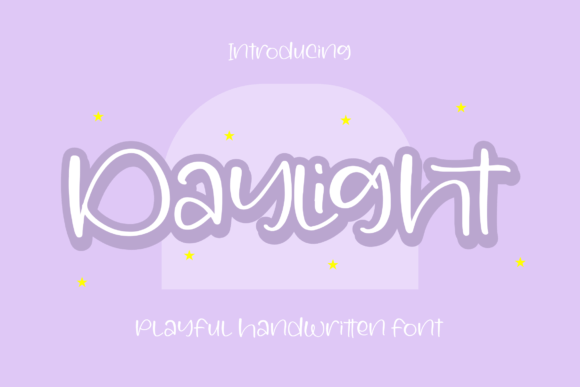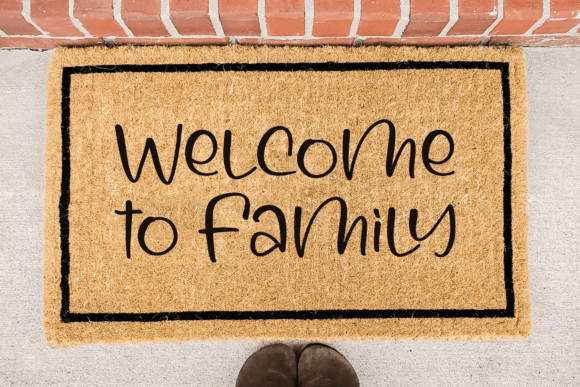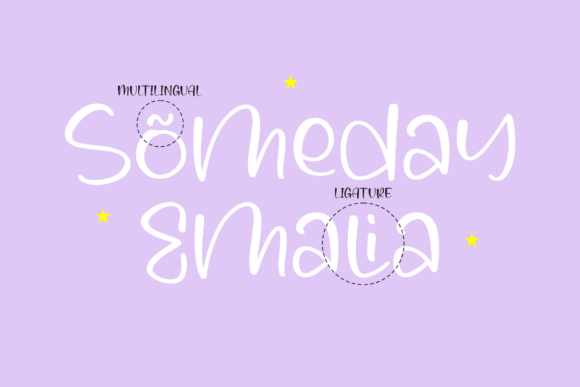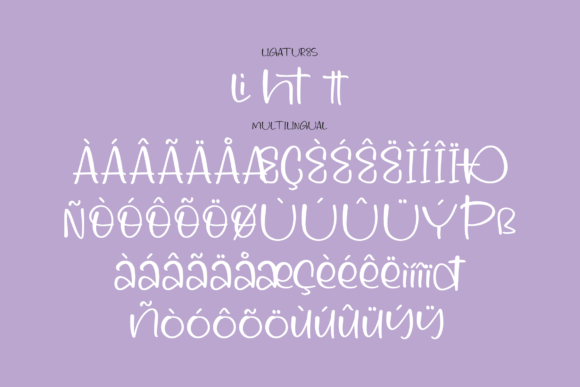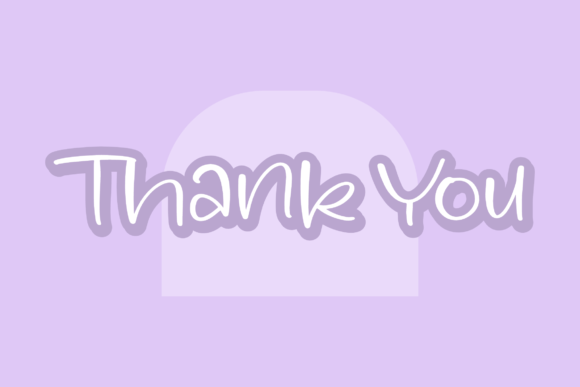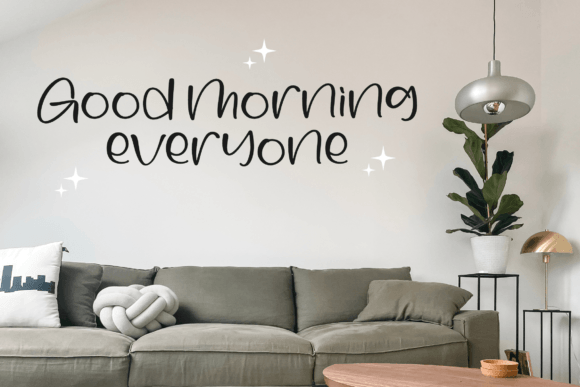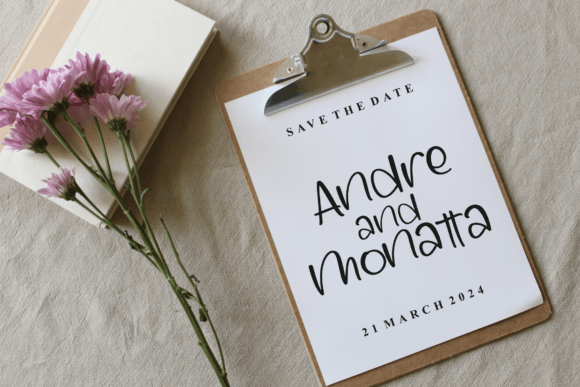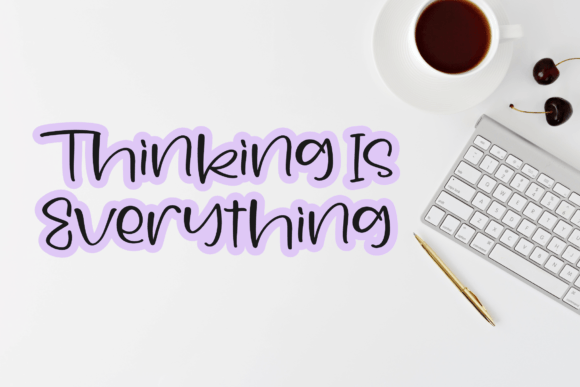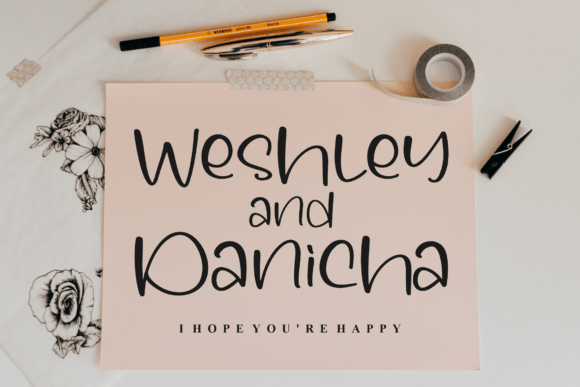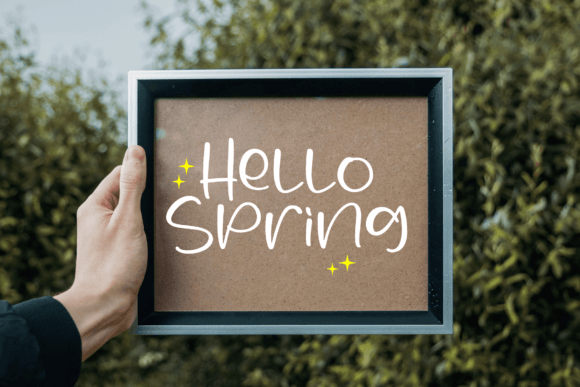
Daylight Font
About Daylight Font
“Daylight” is a delightful and playful handwritten font that brings a sense of joy and creativity to any design. Its whimsical and cheerful style makes it a versatile choice for a wide range of creative projects, enhancing the overall appeal of your work with its unique character.
The font’s playful nature makes it perfect for a variety of applications. Whether you’re working on posters, social media graphics, greeting cards, branding, logos, or any other creative project that needs a touch of charm and character, “Daylight” adds a sense of fun and playfulness. Its handwritten style gives designs a personal and relatable feel, making them more engaging and appealing to viewers.
“Daylight” is designed to inspire creativity and add a sense of lightheartedness to your projects. Its cheerful appearance creates an inviting and vibrant atmosphere, making it ideal for designs that aim to connect with the audience on a playful level. The font’s versatility allows it to adapt to different themes and styles, making it a valuable asset for designers seeking a lively and spirited typographic solution.
Embrace the fun and playful spirit of “Daylight” in your creative endeavors, and let its unique charm inspire you to create standout and imaginative designs. Whether you’re designing for personal or professional purposes, this font is sure to infuse your projects with a sense of creativity and playfulness, making them truly memorable and captivating.